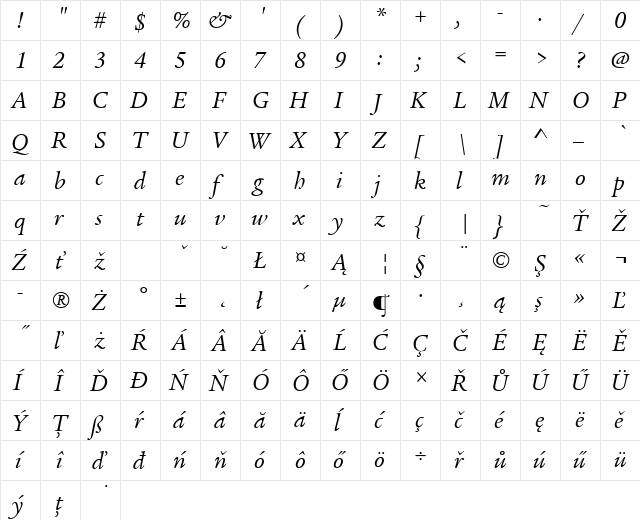
LegacySerItcTEE Italic
Design Context for LegacySerItcTEE Typeface
LegacySerItcTEE takes a measured approach to typography — its balanced proportions and neutral character make it a reliable workhorse for both digital and print work. The slanted form adds forward momentum and visual energy.
Pro Tip: Try LegacySerItcTEE for annotation and caption copy alongside an upright companion — the contrast in angle creates a dynamic but ordered typographic system.